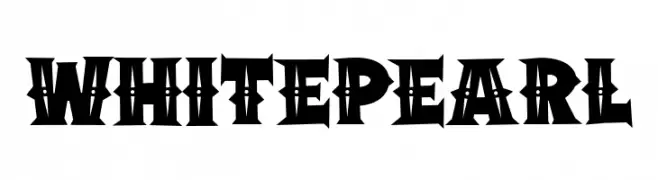
A bold, three-dimensional font with angular, geometric shapes and strong contrast.
A bold, distressed font with a grunge texture and high contrast.
A bold, bullet hole-themed font with high contrast and dramatic impact.
Abstract geometric symbol font with bold, decorative shapes.
A bold, decorative font with intricate patterns and a vintage flair.
A bold, decorative font with characters in spiky star shapes, offering high contrast and visual impact.
A bold, grunge-style font with a sketchy, graffiti-inspired look.
A bold, outlined font with a playful, hand-drawn style.
A bold, decorative font styled as domino tiles with playful dot patterns.
Ornate Art Deco border and corner designs in a decorative style.
A bold, circular-enclosed font with high contrast and a modern, decorative style.
A decorative set of symbols resembling stylized masks or faces.
Whimsical, illustrated font with round, character-based glyphs.